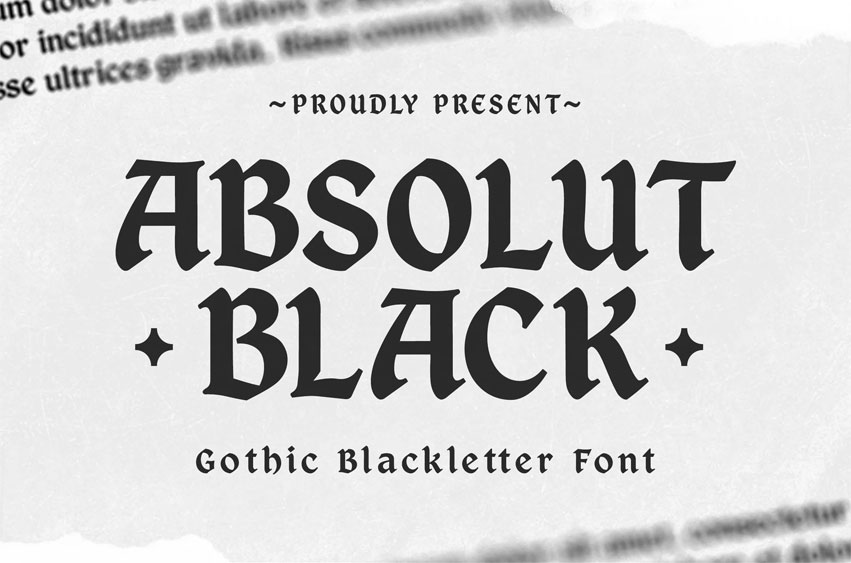
Absolut Black Font
Absolut Black Font is a bold gothic blackletter display font inspired by medieval manuscripts and classic European typography. It features sharp angular strokes, dramatic contrast, and strong vertical emphasis that create a powerful, authoritative visual presence.
Designed with clean, solid letterforms and no texture, Absolut Black is ideal for logos, headlines, posters, album covers, branding, and editorial titles that require a dark, historic, and commanding aesthetic while remaining crisp and modern in execution.
This font is perfect for projects that aim to convey strength, tradition, mystery, and timeless character.
Key Characteristics: Gothic / Blackletter style Sharp angular terminals High contrast strokes Strong vertical structure Clean, flat, texture-free design Bold and dramatic appearance
Best Used For: Logo & wordmark design Album & band artwork Posters & event titles Editorial headlines Packaging with dark or classic themes Vintage & medieval-inspired branding